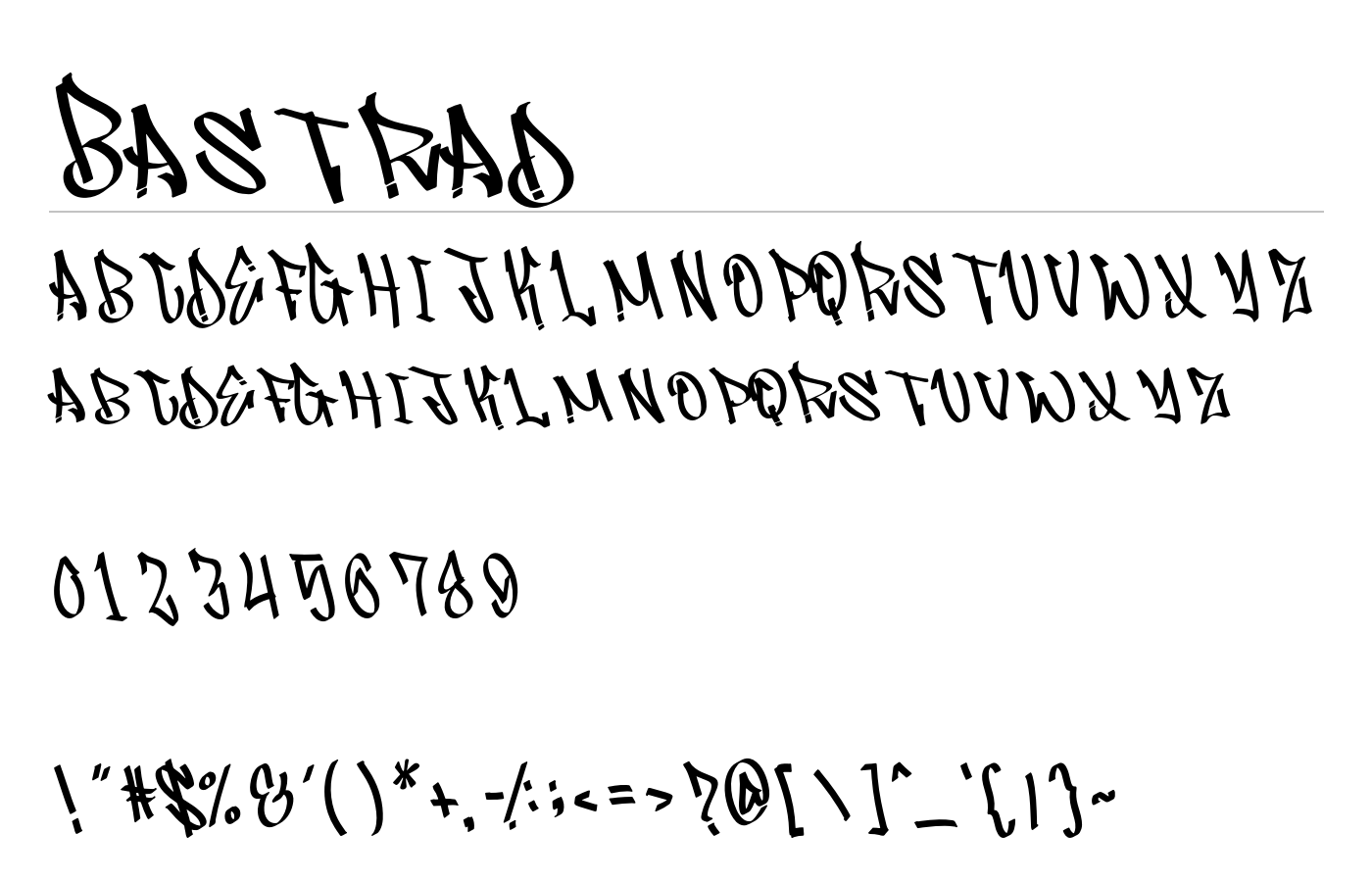
Bastrad is a distinctive handwritten-style font with a playful and edgy character, featuring irregular, angular letterforms that give it a bold and unconventional look. Its tall, narrow shapes and varying stroke weights make it ideal for creative designs needing a quirky, artistic flair, such as posters, logos, or any project seeking an urban, youthful vibe. This font stands out best in display use where its unique personality can truly shine.
Bastrad Font
About Bastrad Font